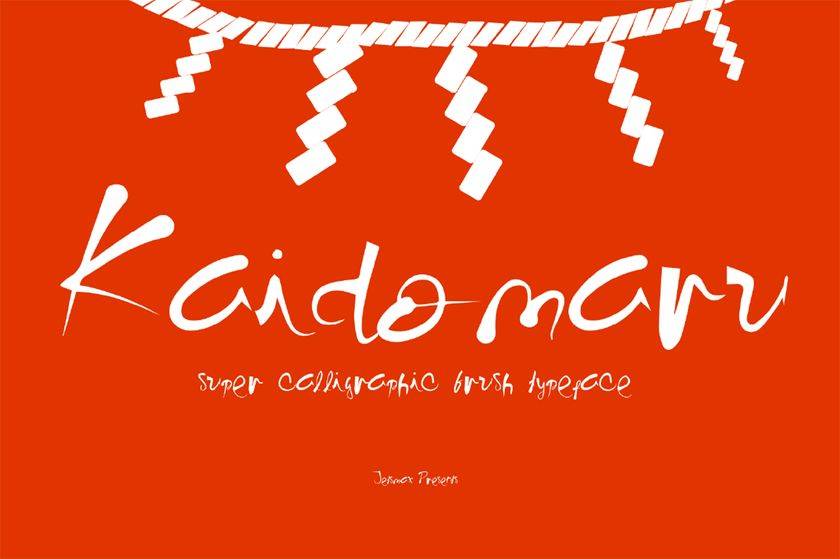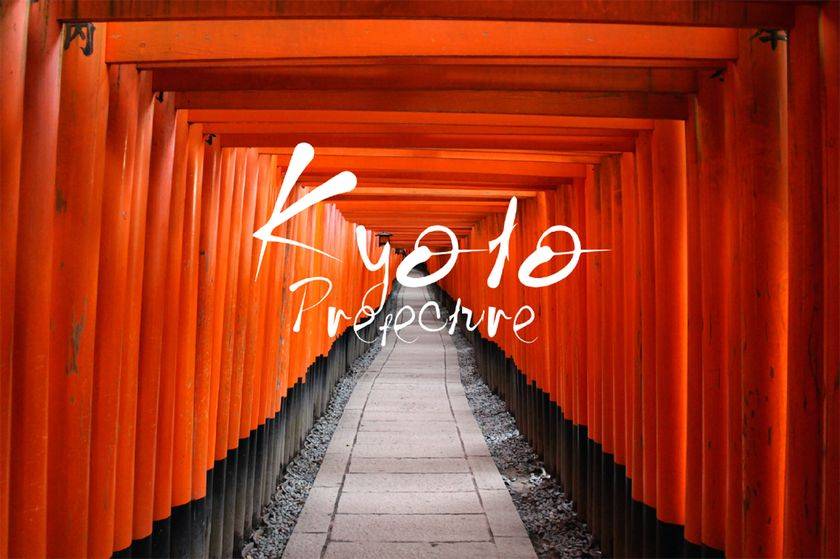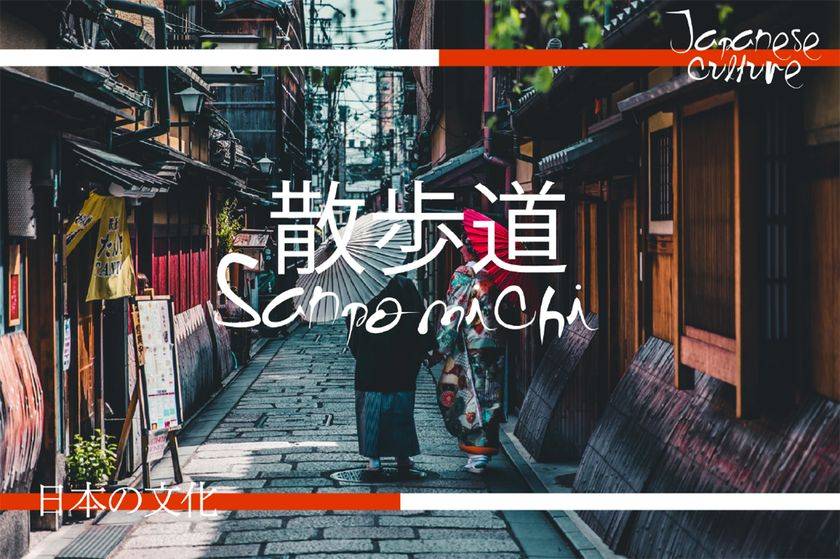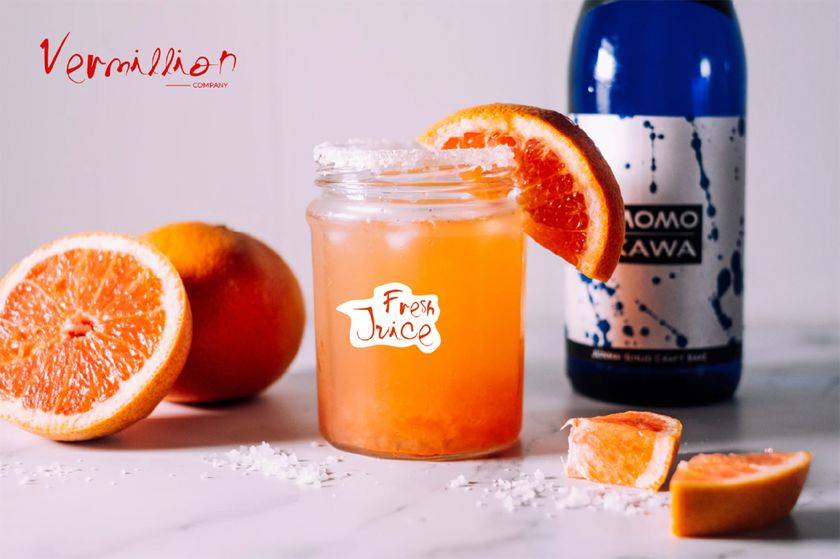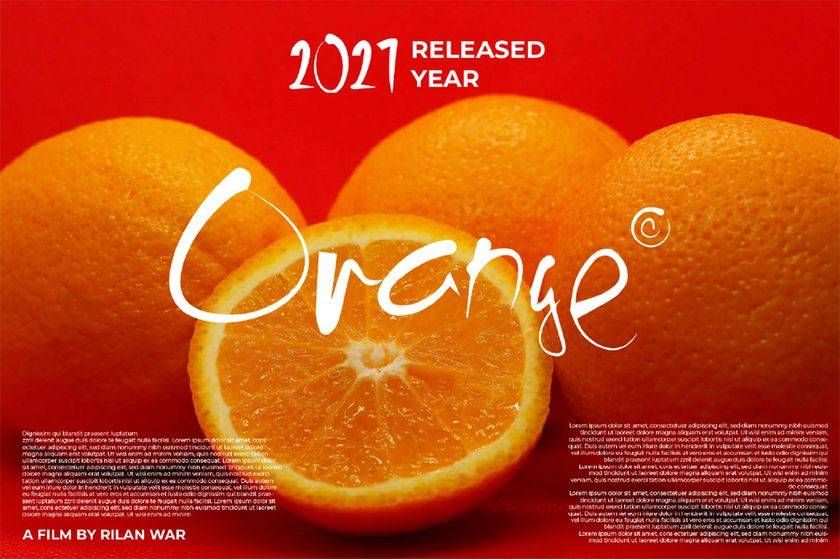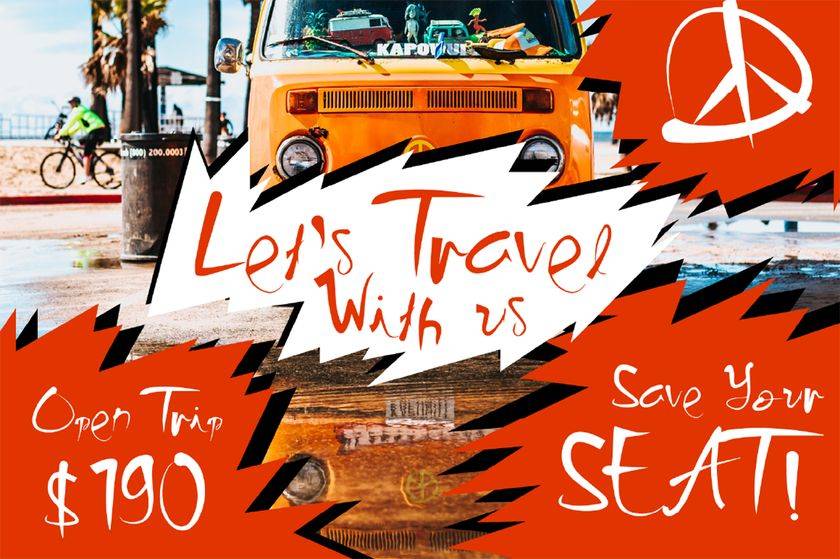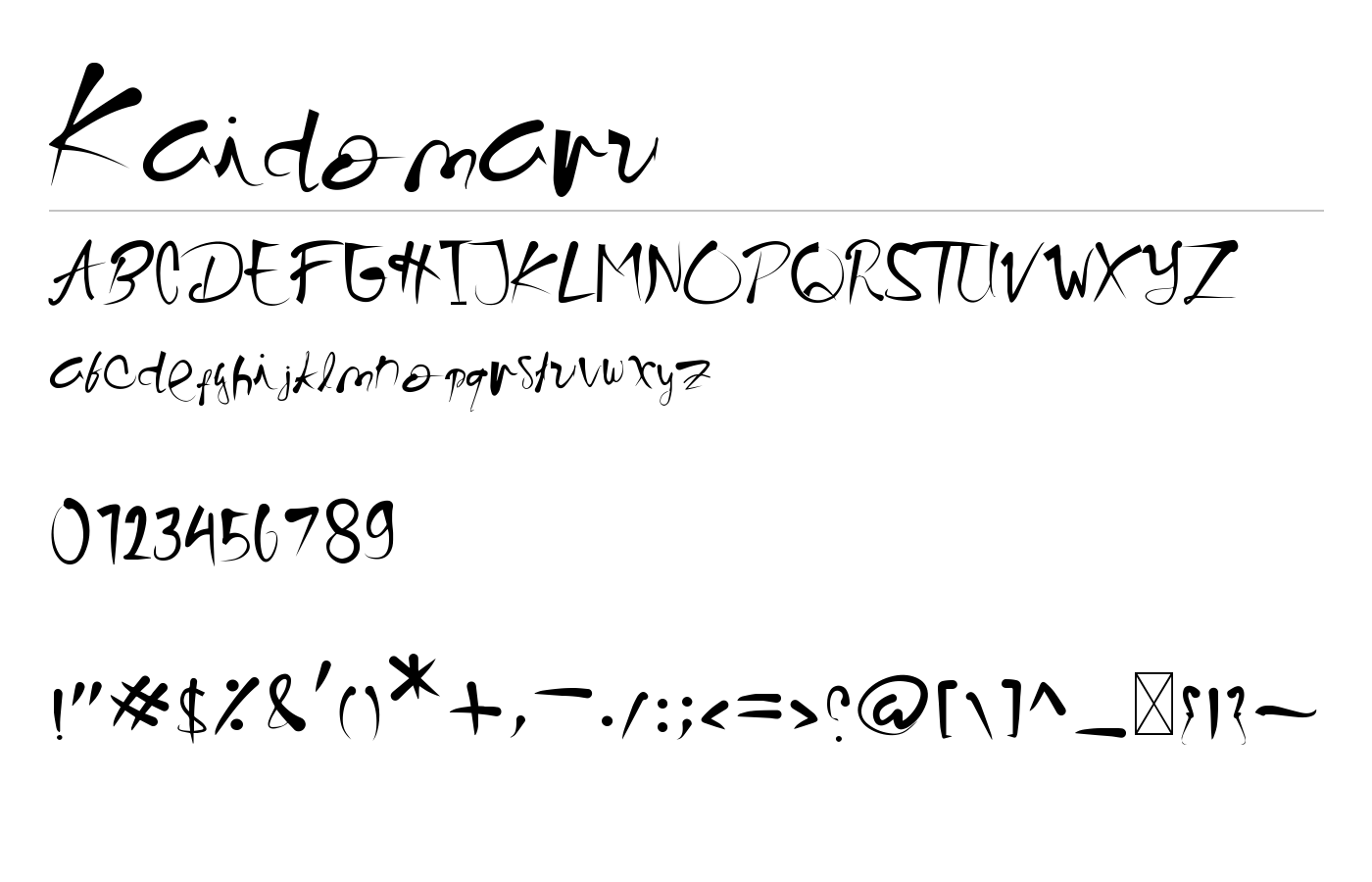
Kaidomaru is a playful and artistic handwritten font that features irregular, slender strokes with quirky, energetic letterforms. Its unique mix of sharp and rounded edges gives it an expressive, informal feel, making it ideal for creative projects, branding, and designs seeking a personal, dynamic touch. This font works well for headlines, logos, and invitations where a distinct, lively personality is desired.
| Font family | Kaidomaru Font |
| Languages supported | Latin, Thai, CJK, Symbols |
| Release date | 2020-11-19 |
| Designer | Khairil Anwar |